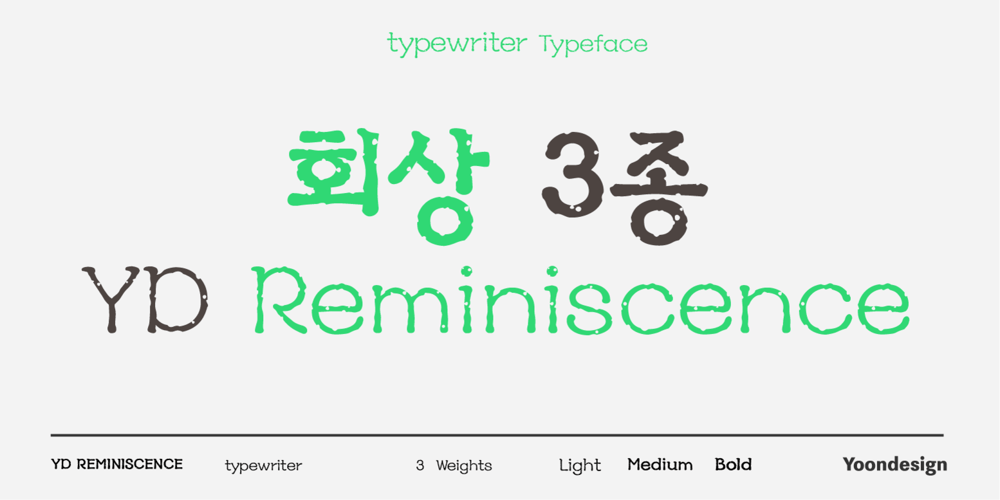
YD Reminiscence Font Family was designed by Yoon Design Team and published by Yoon Design. YD Reminiscence contains 2 styles and family package options. YD Reminiscence Family is an oldish-looking typewriter font. This font family had been designed carefully to be retro-looking of the old time and to fill all with nostalgia. This font family has 3 styles. Also it can be used posters and every kind of graphic design works.